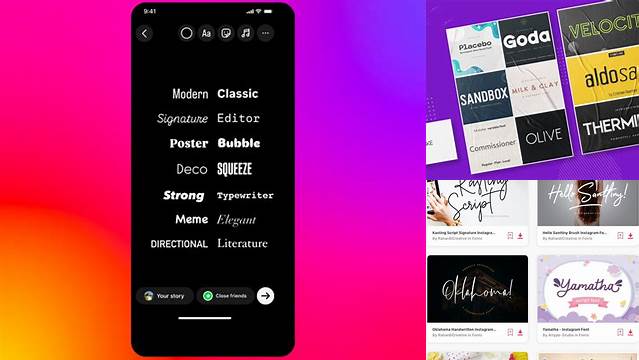
Free Instagram Meme Font Download: Get Creative Now!
Hey guys! Ever scrolled through Instagram and wondered how those hilarious memes get their distinctive look? A huge part of it is the font they use! Finding the perfect font can seriously elevate your meme game and make your content super engaging. In this article, we’ll dive into everything you need to know about finding and downloading those iconic Instagram meme fonts for free. Let's get started and unleash your inner meme lord!
1. Understanding the Popularity of Meme Fonts
Why do certain fonts dominate the meme world? It’s all about readability and impact. A good meme font needs to be easily readable, even at small sizes, and it should pack a visual punch. The impact of a font can greatly influence how viewers perceive the humor and message of the meme. Think about it – a serious-looking font on a silly meme just doesn’t hit the same way, right? Plus, the consistency in using familiar fonts helps in creating a recognizable brand for meme creators. By using the same fonts that people are used to seeing on memes, you are more likely to create content that resonates and connects with a larger audience. Consistency helps in creating a recognizable style, which is essential for building a following and establishing yourself in the meme community. Also, certain fonts have become intrinsically linked with certain types of memes, so choosing the right font can also help you tap into established meme formats and trends. When considering fonts, think about how they reflect the message and tone you want to convey. Do you want something bold and attention-grabbing or something more subtle and understated? Understanding this will help you choose the right font for your meme.
2. Identifying Common Instagram Meme Fonts
Okay, so what fonts are we actually talking about? There are a few big players that consistently show up in memes across the internet. One of the most popular is Impact. This bold, sans-serif font is practically synonymous with memes, thanks to its clear legibility and impactful presence. Another common choice is Arial or Arial Black, known for their simplicity and versatility. These fonts are clean, easy to read, and work well in various meme formats. Then there’s Montserrat, a modern sans-serif that’s gaining traction for its sleek and contemporary vibe. These are just a few of the many fonts that meme creators use to enhance their content. To spot these fonts in the wild, pay attention to the characteristics we just discussed: legibility, boldness, and simplicity. Try to notice the fonts used in memes you encounter daily, and soon you'll start recognizing the patterns. And remember, the best way to identify these fonts accurately is to use online font identification tools. These tools allow you to upload an image of text and then identify the font used in the image. There are several free font identification tools available online, such as WhatTheFont! and Font Squirrel’s Font Identifier. These tools can be invaluable for building your meme font library.
5. Using Font Identification Tools to Find Meme Fonts
Ever see a meme with the perfect font but have no idea what it is? That's where font identification tools come in handy! These tools allow you to upload an image of text, and they’ll analyze it to identify the font used. One of the most popular tools is WhatTheFont! from MyFonts. Simply upload the image, and it will try to match the font. Font Squirrel’s Font Identifier is another excellent option. It’s free and provides a straightforward way to identify fonts from images. These tools work by comparing the shapes and characteristics of the letters in your image to a vast database of fonts. The more clear and high-resolution the image, the better the chances of an accurate match. When using these tools, it's important to crop the image to isolate the text as much as possible. This will help the tool focus on the relevant parts of the image and improve the accuracy of the results. Also, keep in mind that these tools may not always be able to identify every font. Some fonts are too obscure or have been modified in a way that makes them difficult to identify. But for most common meme fonts, these tools are highly effective. By using these tools, you can quickly identify the fonts used in your favorite memes and add them to your own collection. This will help you create memes that are visually appealing and consistent with the latest trends.
6. Optimizing Text for Readability in Memes
Even the best font can fall flat if your text isn't readable. Here's how to optimize your text for maximum meme impact. Choose a font size that is large enough to be easily read on different screen sizes. Avoid using extremely small or decorative fonts that can be difficult to decipher. Use contrasting colors to make your text stand out against the background. White text on a dark background or dark text on a light background are always good choices. Add a stroke or outline to your text to further enhance its visibility. A black or white outline can make your text pop, especially against busy backgrounds. Consider adding a background box behind your text to create a clear and defined space. This can be especially helpful if your meme image has a lot of visual clutter. Pay attention to text placement and alignment. Center-aligning text is often the easiest to read, but experiment with different alignments to see what works best for your particular meme. And remember, readability is key to getting your meme's message across. If people can't easily read your text, they're likely to scroll past without engaging. By following these optimization tips, you can ensure that your memes are both visually appealing and easy to understand.
7. Creating Custom Meme Templates with Your Downloaded Fonts
Now that you've got your fonts, it's time to create some killer memes! Custom meme templates can make the process faster and more efficient. Use image editing software like Adobe Photoshop, GIMP, or even online meme generators to create your templates. Start by choosing a popular meme format or create your own unique layout. Add text placeholders where you'll add your meme text. Choose your favorite meme font and set the font size, color, and alignment for the placeholders. Save the template as a PNG or JPEG file. Now you can easily open the template in your image editor, add your text, and create a meme in minutes. Creating custom meme templates can save you a lot of time and effort in the long run. It also helps you maintain a consistent style and brand for your memes. You can create different templates for different types of memes, such as reaction memes, advice memes, and image macros. Organize your templates in folders so you can easily find them when you need them. And don't be afraid to experiment with different layouts and fonts to find what works best for you. By creating custom meme templates, you can streamline your meme-making process and create high-quality content that resonates with your audience.
8. Exploring Different Font Styles for Various Meme Themes
Not all fonts are created equal, and different font styles work better for different meme themes. For humorous memes, consider using bold, playful fonts like Comic Sans MS or Impact. These fonts convey a lighthearted and comedic tone. For more serious or thought-provoking memes, opt for clean, sans-serif fonts like Arial or Helvetica. These fonts convey a sense of professionalism and clarity. For vintage or retro-themed memes, try using fonts that evoke a sense of nostalgia, such as Courier New or Times New Roman. These fonts can add a touch of authenticity to your memes. For memes that require a handwritten or personal touch, consider using script fonts like Brush Script MT or Comic Marker. These fonts can make your memes feel more intimate and relatable. Experiment with different font styles to see what works best for your particular meme theme. Pay attention to how the font complements the message and visuals of your meme. The right font can enhance the impact of your meme and make it more memorable. Remember, the goal is to create memes that are visually appealing and easy to understand. By exploring different font styles, you can find the perfect font for every meme theme.
9. Understanding Font Licensing for Meme Creation
Before you go wild with your new fonts, it's crucial to understand font licensing. Many fonts are free for personal use but require a commercial license if you plan to use them for monetized content. Always check the font's license before using it in your memes, especially if you plan to share them on platforms where you earn revenue. Look for fonts with a Creative Commons license or those that are explicitly stated as free for commercial use. Websites like Google Fonts and Font Squirrel offer many fonts with permissive licenses that allow you to use them in your memes without restriction. Be cautious of fonts that claim to be free but don't provide clear licensing information. It's always better to err on the side of caution and choose fonts with clear and transparent licensing terms. Using a font without the proper license can lead to legal issues, so it's essential to do your research and ensure you're using fonts responsibly. Understanding font licensing is a crucial part of meme creation. By following these guidelines, you can create memes with confidence, knowing that you're using fonts legally and ethically.
10. Utilizing Online Meme Generators with Custom Font Options
If you're not comfortable using image editing software, online meme generators are a great alternative. Many online meme generators allow you to upload your own images and add text using a variety of fonts. Some even allow you to upload your own custom fonts, giving you even more creative control. Popular meme generators like Imgflip, Kapwing, and Meme Generator offer a wide range of features and customization options. These tools make it easy to create memes quickly and efficiently, without the need for complex software. To use custom fonts in these generators, simply upload the font file to the generator's font library. Then, you can select the font from the font menu and use it in your meme. Be sure to check the generator's terms of service to ensure that you're allowed to upload and use custom fonts. Utilizing online meme generators with custom font options is a great way to create memes quickly and easily. These tools provide a user-friendly interface and a wide range of features that make meme creation a breeze.
11. Combining Different Fonts for Unique Meme Designs
Want to make your memes stand out? Try combining different fonts to create unique and eye-catching designs. Experiment with pairing bold fonts with lighter fonts, or sans-serif fonts with serif fonts. The key is to find fonts that complement each other and create a harmonious visual effect. For example, you could use a bold font like Impact for the main headline and a lighter font like Arial for the body text. Or you could use a sans-serif font like Helvetica for the image caption and a serif font like Times New Roman for the meme text. When combining fonts, it's important to limit yourself to two or three fonts per meme. Using too many fonts can make your meme look cluttered and confusing. Pay attention to the font sizes and line heights to ensure that the text is easy to read. And don't be afraid to experiment with different font combinations until you find what works best for you. Combining different fonts can add a touch of creativity and personality to your memes. By following these tips, you can create memes that are visually appealing and memorable.
12. Creating Animated Memes with Custom Fonts
Take your meme game to the next level by creating animated memes with custom fonts. Animated memes can capture attention and convey humor in a way that static memes can't. Use animation software like Adobe After Effects, Filmora, or online animation tools like Kapwing to create your animated memes. Start by creating a storyboard to plan out the animation. Then, import your images and add text using your custom fonts. Animate the text to make it appear, disappear, or move across the screen. Add sound effects or music to enhance the comedic effect. Keep the animation short and sweet to avoid losing your audience's attention. Animated memes can be more time-consuming to create than static memes, but the extra effort can pay off in terms of engagement and shareability. By creating animated memes with custom fonts, you can create content that is both visually appealing and highly entertaining.
13. Using Gradients and Effects with Meme Fonts
Add some flair to your meme fonts by using gradients and effects. Gradients can add depth and dimension to your text, while effects like shadows and outlines can make your text pop. Use image editing software like Adobe Photoshop or GIMP to add gradients and effects to your meme fonts. To add a gradient, select the text layer and apply a gradient overlay. Choose the colors and angle of the gradient to create the desired effect. To add a shadow, select the text layer and apply a drop shadow. Adjust the distance, angle, and opacity of the shadow to create the desired effect. To add an outline, select the text layer and apply a stroke. Choose the color and width of the outline to create the desired effect. Be careful not to overdo the gradients and effects, as too much can make your text look cluttered and difficult to read. The goal is to enhance the text, not overwhelm it. By using gradients and effects with meme fonts, you can create memes that are visually appealing and attention-grabbing.
14. Keeping Up with Trending Meme Fonts
The meme landscape is constantly evolving, and new meme fonts are always emerging. To stay ahead of the curve, it's important to keep up with trending meme fonts. Pay attention to the fonts used in popular memes on social media platforms like Instagram, TikTok, and Twitter. Follow meme creators and influencers to see what fonts they're using in their content. Join meme communities and forums to discuss trending fonts and share your own font discoveries. Use font identification tools to identify the fonts used in memes that catch your eye. Experiment with different fonts and styles to see what resonates with your audience. By keeping up with trending meme fonts, you can ensure that your memes are always fresh and relevant.
15. Customizing Downloaded Fonts for Unique Meme Creations
Want to put your own spin on meme fonts? Customize downloaded fonts to create unique meme creations. Use font editing software like FontForge or Glyphs to modify the shapes, spacing, and kerning of your fonts. Add your own ligatures and alternate characters to create a custom look. Experiment with different font weights and styles to create variations of the original font. Be careful not to make too many changes, as too much customization can make the font difficult to read. The goal is to enhance the font, not completely transform it. Customizing downloaded fonts can be a great way to express your creativity and make your memes stand out from the crowd. By following these tips, you can create fonts that are uniquely yours.
16. Creating a Consistent Brand Identity with Your Font Choices
If you're a meme creator or brand, it's important to create a consistent brand identity with your font choices. Choose a few fonts that represent your brand's personality and stick with them in all of your memes and content. Use the same font for your logo, watermarks, and social media graphics. This will help create a cohesive and recognizable brand image. Avoid using too many different fonts, as this can make your brand look inconsistent and unprofessional. Pay attention to the font sizes, colors, and spacing to ensure that your text is always easy to read. By creating a consistent brand identity with your font choices, you can build a strong and memorable brand that resonates with your audience.
17. Troubleshooting Common Font Issues in Meme Creation
Even with the best fonts, you may encounter some issues in meme creation. Here are some common font issues and how to troubleshoot them. If a font is not displaying correctly, try restarting your computer or the application you're using. If a font is blurry or pixelated, make sure you're using a high-resolution image and that the font size is large enough. If a font is not available in a particular application, make sure it's installed correctly and that the application supports the font format. If a font is causing your computer to crash, try uninstalling it and reinstalling it from a reputable source. If you're still having issues, consult the font's documentation or contact the font's creator for support. Troubleshooting common font issues can be frustrating, but with a little patience and persistence, you can usually resolve the problem.
18. The Ethical Use of Fonts in Meme Culture
Meme culture thrives on sharing and remixing content, but it's important to be ethical when using fonts. Always respect the font's license and terms of use. Avoid using fonts in a way that is offensive, discriminatory, or harmful. Give credit to the font's creator when possible. Be mindful of the impact your memes may have on others and avoid creating content that could be considered bullying or harassment. Use fonts to spread positivity and humor, not negativity and hate. By being ethical in your use of fonts, you can help create a more positive and inclusive meme culture.
19. Exploring the History and Evolution of Meme Fonts
Meme fonts have a rich history and evolution. From the early days of Impact and Arial to the modern era of Montserrat and Open Sans, meme fonts have played a crucial role in shaping internet culture. Early meme fonts were often chosen for their simplicity and legibility, while modern meme fonts are more diverse and expressive. The evolution of meme fonts has been driven by changes in technology, design trends, and the evolving tastes of internet users. By exploring the history and evolution of meme fonts, you can gain a deeper appreciation for the role they play in meme culture.
20. Tips for Choosing the Right Font Size for Memes
Choosing the right font size is crucial for meme readability. If the font is too small, people won't be able to read it. If the font is too large, it will take up too much space and make the meme look cluttered. Consider the size of the image and the amount of text you need to include. Use a font size that is large enough to be easily read, but not so large that it overwhelms the image. Experiment with different font sizes to see what works best for your particular meme. Use a consistent font size throughout your meme to maintain a professional look. By following these tips, you can choose the right font size for your memes and ensure that they are easy to read.
21. The Psychology Behind Font Choices in Memes
Font choices in memes can have a significant impact on how people perceive and react to the content. Bold fonts like Impact can convey a sense of urgency or importance, while lighter fonts like Arial can convey a sense of simplicity or clarity. Script fonts can convey a sense of personality or emotion, while serif fonts can convey a sense of tradition or authority. Consider the message you want to convey and choose a font that aligns with that message. Pay attention to the font's weight, style, and spacing, as these factors can also influence how people perceive the text. By understanding the psychology behind font choices, you can create memes that are more effective and engaging.
22. Mobile Apps for Meme Creation with Font Options
Create memes on the go with mobile apps that offer a variety of font options. Many mobile apps, such as Meme Generator, Imgflip, and Kapwing, allow you to create memes directly from your smartphone or tablet. These apps offer a wide range of features and customization options, including the ability to add text, images, and effects. Some apps even allow you to upload your own custom fonts. Use these apps to create memes on the go and share them with your friends and followers. Mobile apps for meme creation are a great way to stay creative and connected, no matter where you are.
23. Legal Considerations for Using Downloaded Fonts in Commercial Memes
When using downloaded fonts in commercial memes, it's important to consider the legal implications. Always check the font's license to ensure that you're allowed to use it for commercial purposes. Some fonts may require you to purchase a commercial license, while others may be free for commercial use. Be aware of any restrictions on how you can use the font, such as limitations on the number of copies you can distribute or the types of projects you can use it for. Avoid using fonts that are protected by copyright or trademark without obtaining permission from the font's owner. By following these legal considerations, you can avoid potential legal issues and ensure that you're using fonts responsibly.
24. The Future of Meme Fonts: Trends and Predictions
The future of meme fonts is likely to be shaped by emerging technologies, design trends, and the evolving tastes of internet users. Expect to see more innovative and expressive fonts that push the boundaries of traditional typography. AI-powered font generators may make it easier to create custom fonts that are tailored to specific meme themes. Animated fonts and 3D fonts could become more popular, adding a new dimension to meme design. The rise of virtual and augmented reality may also influence the future of meme fonts, creating new opportunities for immersive and interactive meme experiences. By staying informed about these trends and predictions, you can prepare for the future of meme fonts and stay ahead of the curve.
25. How to Organize Your Font Library for Efficient Meme Creation
An organized font library is essential for efficient meme creation. Create folders for different types of fonts, such as meme fonts, display fonts, serif fonts, and sans-serif fonts. Use descriptive names for your folders to make it easy to find the fonts you need. Tag your fonts with keywords to make them searchable. Use a font management tool to preview and activate your fonts. Regularly clean up your font library to remove any duplicate or unnecessary fonts. By organizing your font library, you can save time and effort in meme creation and ensure that you always have the right fonts at your fingertips.
26. Collaborating with Other Meme Creators Using Shared Fonts
Collaborate with other meme creators using shared fonts to create a consistent and professional look for your memes. Share your favorite fonts with your collaborators and encourage them to use them in their own memes. Create a shared font library that everyone can access. Use a consistent font style and size in all of your collaborative memes. Provide feedback on each other's font choices to ensure that they align with your brand's identity. By collaborating with other meme creators using shared fonts, you can create a strong and cohesive brand that resonates with your audience.
27. Creating Font Pairings for Visually Appealing Memes
Font pairings can enhance the visual appeal of your memes. Pair a bold font with a lighter font to create contrast and interest. Pair a serif font with a sans-serif font to create a balanced and harmonious look. Use a script font sparingly, as it can be difficult to read in large blocks of text. Consider the message you want to convey and choose font pairings that align with that message. Experiment with different font pairings until you find what works best for your particular meme. By creating font pairings for your visually appealing memes, you can capture attention and convey your message effectively.
28. Using Typography to Enhance Meme Humor
Typography can play a significant role in enhancing meme humor. Use bold fonts to emphasize punchlines and key phrases. Use italics to add sarcasm or irony. Use different font sizes to create emphasis and draw attention to important elements. Use creative font styles to add a touch of whimsy or absurdity. Consider the overall tone of the meme and choose typography that complements that tone. By using typography to enhance meme humor, you can create memes that are more engaging and entertaining.
29. The Impact of Font Choice on Meme Engagement Rates
The font choice can have a significant impact on meme engagement rates. Memes with clear and legible fonts are more likely to be read and shared. Memes with visually appealing fonts are more likely to capture attention and generate interest. Memes with fonts that align with the meme's message are more likely to resonate with the audience. Experiment with different fonts and track your engagement rates to see what works best for your audience. By optimizing your font choices, you can increase your meme engagement rates and reach a wider audience.
30. Resources for Learning More About Typography for Meme Design
There are many resources available for learning more about typography for meme design. Online courses and tutorials can teach you the basics of typography and how to apply them to meme design. Books on typography can provide a more in-depth understanding of the subject. Design blogs and websites can keep you up-to-date on the latest trends and techniques. Font foundries and type designers can offer valuable insights into the art and science of typography. By investing in your typography education, you can improve your meme design skills and create more effective and engaging memes.